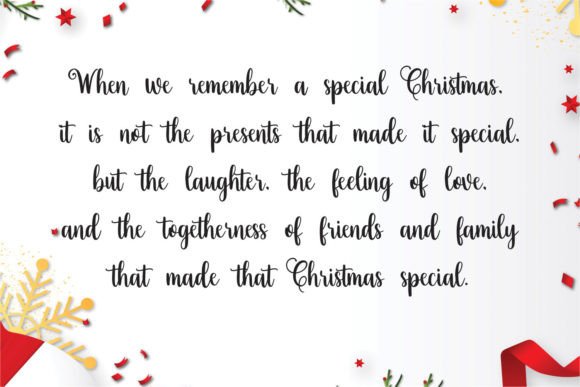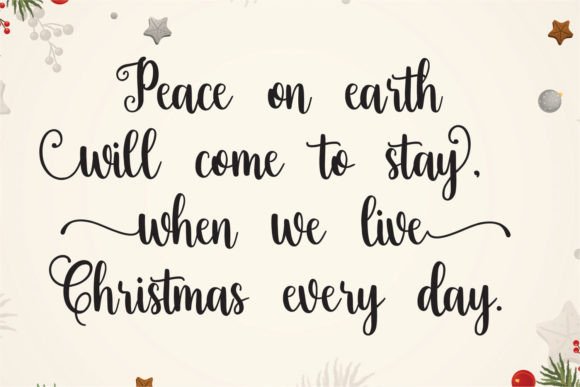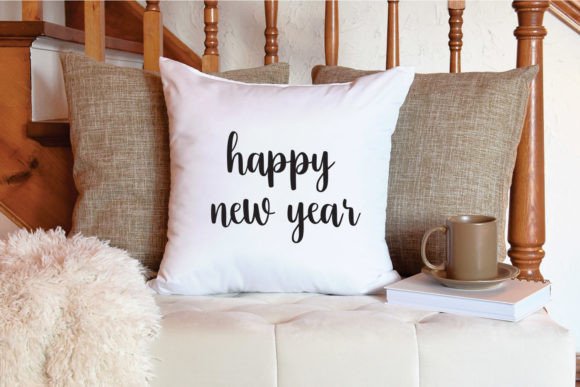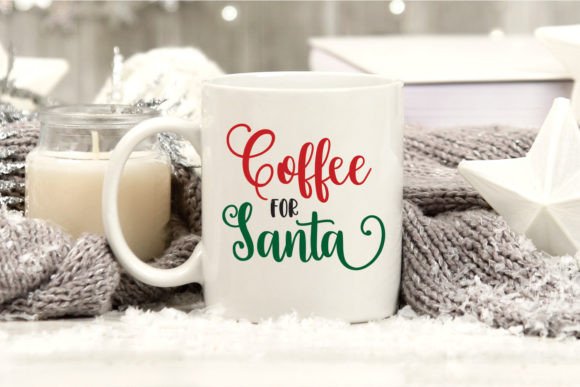
Introducing Christmas Font: A Sweet and Delicate Handwritten Font for Your Holiday Designs
Are you looking for a font that captures the essence of the holiday season? Do you want to add a touch of romance and whimsy to your designs? Look no further than Christmas Font, a beautiful handwritten font that’s perfect for creating stunning holiday-themed projects. In this article, we’ll take a closer look at Christmas Font, its features, and how you can use it to elevate your designs.
What is Christmas Font?
Christmas Font is a sweet and delicate handwritten font that’s designed to bring a touch of joy and festivity to your designs. Its dainty and playful style makes it ideal for writing wedding invitations, cards, or any other design that requires a romantic, personalized touch. Whether you’re a designer, crafter, or DIY enthusiast, Christmas Font is a versatile font that can be used for a wide range of projects.
Key Features of Christmas Font
So, what makes Christmas Font so special? Here are some of its key features:
- PUA Encoding: Christmas Font is PUA encoded, which means you can access all the glyphs and ligatures with ease. This makes it easy to use and customize the font to suit your design needs.
- Handwritten Style: The font features a beautiful handwritten style that’s perfect for creating personal and unique designs.
- Dainty and Joyful: The font’s dainty and joyful style makes it ideal for creating holiday-themed designs that are both festive and elegant.
- Romantic and Personalized: Christmas Font is perfect for creating designs that require a romantic, personalized touch, such as wedding invitations, love letters, and Valentine’s Day cards.
How to Use Christmas Font
Christmas Font is easy to use and can be applied to a wide range of design projects. Here are some ideas to get you started:
- Wedding Invitations: Use Christmas Font to create beautiful and elegant wedding invitations that set the tone for a romantic and memorable wedding.
- Holiday Cards: Create stunning holiday cards that feature Christmas Font’s dainty and joyful style.
- DIY Crafts: Use Christmas Font to add a personal touch to your DIY crafts, such as scrapbooking, journaling, and paper crafting.
- Digital Designs: Apply Christmas Font to your digital designs, such as social media graphics, blog posts, and email newsletters.
Tips for Using Christmas Font
Here are some tips for using Christmas Font to get the most out of this beautiful font:
- Pair with Other Fonts: Experiment with pairing Christmas Font with other fonts to create a unique and visually appealing design.
- Adjust Font Size: Adjust the font size to suit your design needs, from small and delicate to large and bold.
- Use Ligatures: Take advantage of Christmas Font’s ligatures to add a touch of elegance and sophistication to your designs.
Whether you’re looking to create a romantic wedding invitation or a festive holiday card, Christmas Font is the perfect choice. Its sweet and delicate style is sure to capture the essence of the holiday season and leave a lasting impression on your audience. So go ahead, get creative, and make this holiday season one to remember with Christmas Font!